12 Essential Clean Sans Serif Font Options to Elevate Your Modern Layouts
Finding a typeface that cuts through the noise without looking boring is the ultimate goal for any modern layout. Over the years, I’ve realized that a truly dependable Clean Sans Serif Font is the hardest working asset in my design archive. Here are 12 remarkable options I’ve curated that balance structural perfection with unique character to keep your next project looking effortlessly sharp.
1. Minvo Clean Sans Serif Font
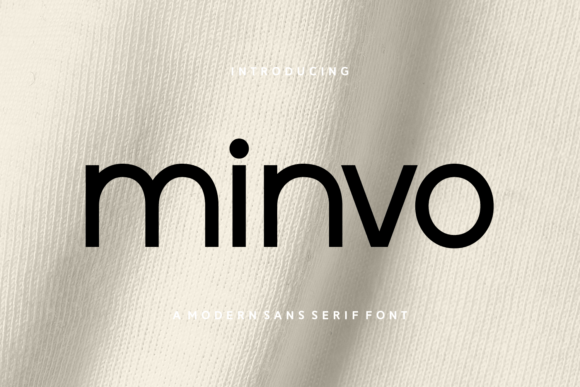
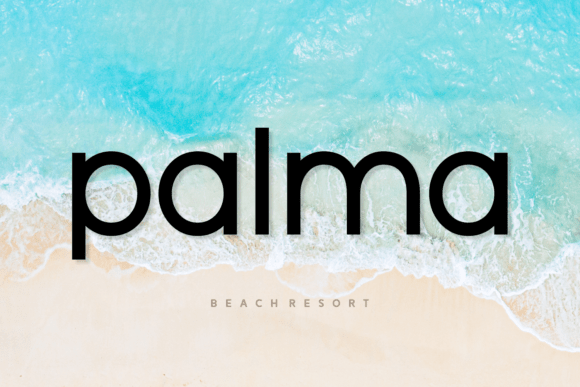
Striking the perfect balance between clinical precision and welcoming warmth is a massive challenge in modern typography, which is why discovering Minvo felt like such a massive win for my personal collection. This is a Clean Sans Serif Font that genuinely prioritizes simplicity without stripping away the human touch. Its rounded shapes and beautifully smooth geometry give it a sleek, professional aesthetic that instantly makes web layouts and minimalist logos look polished, while still keeping the overall vibe completely approachable.
In my day-to-day workflow, having a reliable Clean Sans Serif Font that can pivot between corporate branding and contemporary editorial design is an absolute lifesaver. What I love most about Minvo is its sheer versatility; it scales down brilliantly for dense web interfaces but still carries enough visual weight to anchor a primary brand identity. If you’re trying to elevate your current creative projects with an effortless, modern edge, this typeface deserves a permanent spot in your design toolkit.
2. Ghain Clean Sans Serif Font
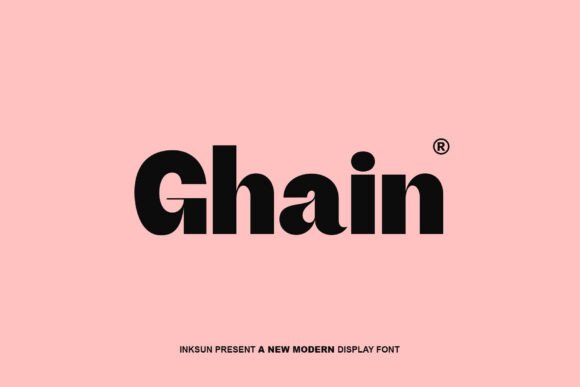
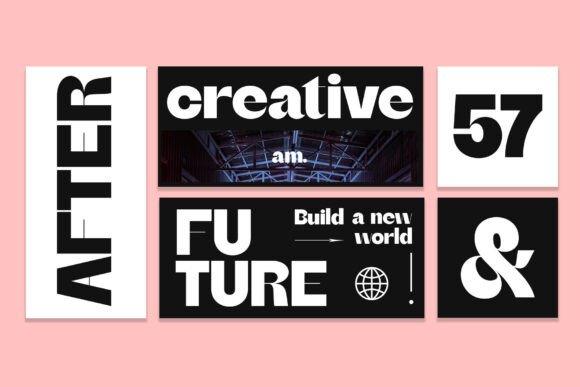
When you need to push your layouts straight into the next decade, Ghain emerges as an absolute powerhouse of a Clean Sans Serif Font. It boldly steps away from the safe, predictable geometry we see every day, delivering a sleek, ultra-modern vibe built on high-contrast shapes that scream futuristic impact. For any creator looking to inject a sense of raw energy into a digital space, its striking structural balance commands immediate attention while keeping the overarching layout pristine and uncluttered.
What really made me fall in love with this Clean Sans Serif Font are the distinctive, cutting-edge “ink-trap” details beautifully paired with razor-sharp lines. These subtle yet highly intentional design quirks make it an incredible asset for crafting minimalist logos and building visual identities for next-gen tech brands. It is the ultimate addition to your creative toolkit for those moments when a project demands a vibe that is sophisticated, forward-thinking, and unapologetically bold.
3. Blessrosa Clean Sans Serif Font
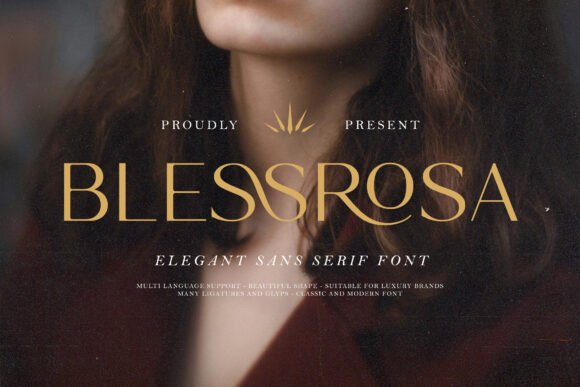
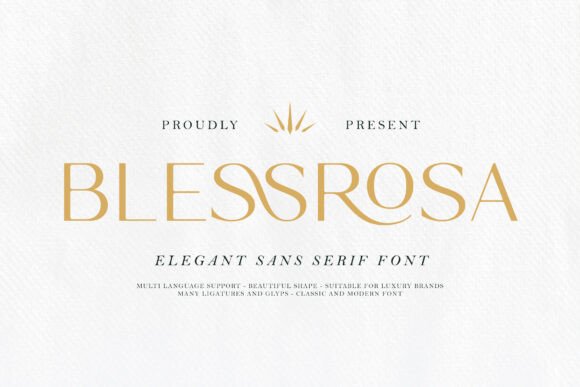
There’s a common misconception that minimalist typography has to feel cold or clinical, but Blessrosa is a Clean Sans Serif Font that completely shatters that stereotype with its royal, graceful lines. It effortlessly marries structural simplicity with a high-end, luxury aesthetic, making it an absolute dream for upscale branding and high-stakes visual identities. Whenever I am working on chic social media content or a minimalist logo that needs to exude pure sophistication, its refined structure brings a certain majestic beauty to the canvas without ever feeling overdesigned.
What makes this Clean Sans Serif Font a truly premium asset in my personal archive is the incredible toolkit of ligatures and creative alternates it offers for customized typography layouts. This level of flexibility is perfect for everything from high-fashion editorials and beauty product packaging to elegant wedding invitations that demand seamless readability alongside a sophisticated edge. Plus, with its extensive multilingual support, it stands out as a reliable, professional-grade resource that helps you communicate beautifully with a global audience while maintaining an elite visual standard.
4. Oqygen Clean Sans Serif Font
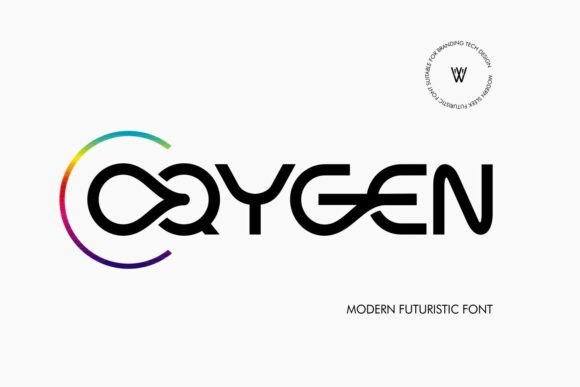
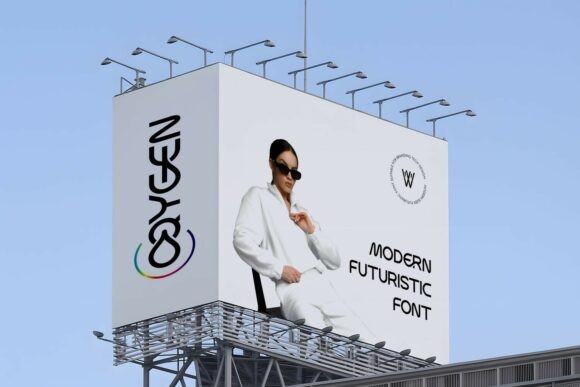
If you’re anything like me, you’re always on the lookout for typefaces that can instantly give a brand an innovative edge without making the layout look cluttered. Enter Oqygen, a Clean Sans Serif Font that masterfully blends a bold, futuristic aesthetic with crisp geometric shapes. It has an incredible contemporary feel that remains completely legible at any size, successfully capturing a unique retro-futuristic vibe reminiscent of the Y2K era while keeping the structural lines perfectly polished and sharp.
For anyone currently designing for tech companies or fast-growing AI startups, this Clean Sans Serif Font is a massive asset for building an assertive digital identity. It functions beautifully as a primary logo font, delivering that elusive balance of cutting-edge innovation and sleek elegance. Whether I’m mapping out a high-tech app interface or an elegant modern logo, Oqygen brings a strong, confident presence to the screen that helps an forward-thinking brand truly stand out.
5. Shemom Clean Sans Serif Font
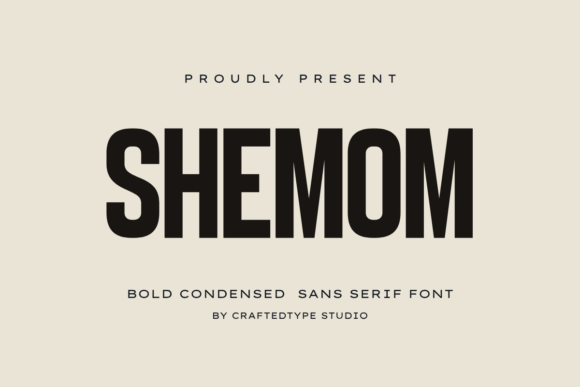
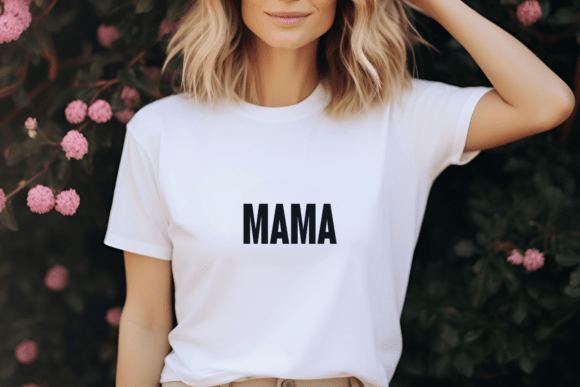
Sometimes a project demands a voice that refuses to fade into the background, and Shemom is a Clean Sans Serif Font that brings that exact commanding energy to the canvas. It completely subverts the idea that minimalist typography must always be thin or delicate, opting instead for thick, tall, condensed letterforms built on a flawless geometric foundation. As a creator, I love how this typeface manages to feel incredibly solid and powerful while keeping its outlines completely immaculate, making it a stellar choice for motherhood-themed branding, lifestyle blogs, or empowering social media quotes.
What makes this specific Clean Sans Serif Font such an essential asset in my modern design toolkit is its remarkable impact across physical products and print-on-demand merchandise. It translates effortlessly onto t-shirts, hoodies, and tote bags, where high visibility and structural weight are everything. Whether you are mapping out a minimalist poster, a contemporary corporate logo, or a bold cinematic title, Shemom provides that rare, punchy sophistication that instantly captures an audience’s attention.
6. Gaego Clean Sans Serif Font
It feels like the design world is constantly flooded with minimalist typefaces that all look identical, but Gaego is a Clean Sans Serif Font that brings something genuinely fresh to the table. It hits that elusive sweet spot between strict geometric simplicity and subtle, unique character, making it an instant favorite for anyone who appreciates understated elegance. Whenever I need a layout to look perfectly organized yet visually intriguing, its beautifully balanced proportions do the heavy lifting effortlessly.
What makes this Clean Sans Serif Font a staple in my everyday workflow is its sheer adaptability across different digital and print mediums. Whether I’m sketching out sleek layouts for web design, setting up editorial spreads, or refining a polished corporate logo, Gaego maintains maximum readability without losing its modern edge. It’s an incredibly reliable, professional resource for any minimalist design project where you want your creative typography to look flawless, sharp, and completely intentional.
7. Margesta Clean Sans Serif Font
Finding a typeface that manages to feel completely stripped-back yet undeniably luxurious is no easy feat, but Margesta pulls it off beautifully. This Clean Sans Serif Font redefines modern elegance by pairing razor-sharp lines with subtle, artistic curves that catch the eye just enough. It brings a sophisticated, timeless look to the screen, making it an absolute dream to work with whenever you want to achieve a high-end, editorial feel without cluttering your layout.
What really stands out when you drop this Clean Sans Serif Font into a project is its incredible structural balance and proportion. It functions seamlessly across a massive range of premium applications, whether I’m setting a bold, sweeping web header for a fashion client or keeping things ultra-legible in a minimalist corporate logo. Having Margesta in your creative toolkit means you always have a reliable option for delivering maximum clarity wrapped in an effortless sense of class.
8. Delinda Clean Sans Serif Font
Every now and then, I find myself craving a visual palate cleanser—a typeface that doesn’t try too hard but completely nails the fundamentals of form. Delinda is exactly that kind of asset, a beautifully executed Clean Sans Serif Font that leans heavily into a fresh, modern, and deceptively simple style. Its smooth lines and flawlessly balanced shapes give it a beautifully calm presence, making it the perfect choice for anyone looking to build a minimalist aesthetic without any unnecessary noise.
In my own creative workflow, dropping this Clean Sans Serif Font into a layout instantly fixes readability issues, especially when I’m working on bold headlines or sleek logos. It possesses a crisp clarity that keeps the viewer’s eyes comfortable and engaged, whether it’s displayed on a massive desktop screen or a tiny mobile interface. If your current design toolkit is lacking a reliable, no-nonsense typeface that radiates effortless simplicity, Delinda is an absolute must-have for your collection.
9. Venus Clean Sans Serif Font
There are days when I just want to sweep away all the decorative clutter from my artboard and let pure, unadulterated geometry do the talking—and that’s exactly when I pull out Venus. This Clean Sans Serif Font is the epitome of contemporary minimalism, stripped of any unnecessary flair to focus purely on structural balance. Its simple, modern proportions give it an incredibly calm and grounded presence, making it an absolute joy to use when you want your layout to breathe and look effortlessly organized.
What makes this particular Clean Sans Serif Font such a versatile powerhouse is how seamlessly its geometric shape choices translate across digital interfaces without ever feeling sterile. I’ve found it to be a massive asset for web design projects and minimalist logos where absolute clarity is the main goal. If you are currently building a contemporary brand identity that leans into a sleek, open, and timelessly clean aesthetic, Venus offers the exact type of effortless precision your creative toolkit needs.
10. Snowglint Clean Sans Serif Font
There is a unique kind of magic in typefaces that manage to evoke a specific mood without screaming for attention, and Snowglint does exactly that. As an all-caps Clean Sans Serif Font, it beautifully captures the crisp clarity and soft sparkle of winter twilight through its refined, no-fuss design choices. Its balanced proportions, pristine lines, and gentle curves inject an unexpected layer of warmth into a minimalist canvas, making it a stellar option for high-end lifestyle blogs, tech interfaces, or sophisticated editorial spreads that need to feel open and breathable.
When dropping this Clean Sans Serif Font into a layout, I am always impressed by how its even spacing and meticulous construction translate effortlessly across both print and digital mediums. Because it focuses purely on uppercase letters, numerals, and essential punctuation, it functions as a highly effective powerhouse for modern branding projects that require absolute, uncompromised legibility. It’s an incredibly sophisticated addition to any creative toolkit, offering a pristine, sharp appearance that makes your typography look polished, deliberate, and undeniably premium.
11. Lightes Clean Sans Serif Font
When it comes to setting extensive body copy on a website or polishing up a high-stakes client presentation, finding a typeface that breathes naturally on the screen is a total game-changer, and that’s precisely why Lightes caught my eye. This beautifully lightweight Clean Sans Serif Font features perfectly simple lines anchored by subtle, delicate curves at the corners. The result is a really fascinating visual contrast—it’s soft enough to feel welcoming and approachable, yet firm enough to hold its structural integrity across both snappy headers and dense blocks of informational text.
What really makes me keep coming back to this Clean Sans Serif Font is its exceptionally airy letter spacing, which makes long-form digital reading feel absolutely effortless for the user. I’ve found it to be an incredible choice for formatting clean corporate articles, setting up web interfaces, or even designing minimalist posters where negative space does most of the talking. If your current toolkit is missing an elegant, multi-purpose option that brings an instant modern polish to professional documents and logos alike, Lightes is well worth adding to your creative rotation.
12. Farmhouse Clean Sans Serif Font
Lately, I’ve been finding myself drawn to designs that look back in time while staying firmly anchored in the present, which is why Farmhouse instantly felt like a breath of fresh air for my collection. It is a wonderfully simple Clean Sans Serif Font that strips away all the unnecessary visual noise to deliver a clean retro look that feels incredibly grounded. By relying on beautifully balanced vintage proportions, it gives you a quick and easy way to inject a warm, nostalgic heartbeat into an otherwise stark, modern artboard without compromising on structure.
What makes this Clean Sans Serif Font such an unexpected gem in my regular design routine is its surprising versatility across highly specialized creative projects. Beyond its obvious utility for sleek web design and minimal logos, its honest, unpretentious lines make it an incredibly cool choice for custom tattoo typography and heritage branding. If your creative toolkit could use a minimalist typeface that effortlessly bridges the gap between classic charm and contemporary layouts, adding Farmhouse to your rotation is a complete no-brainer.
Conclusion
Ultimately, adding a versatile Clean Sans Serif Font to your everyday creative rotation is all about mastering the art of understatement. Whether you are aiming for tech-forward innovation, luxury branding, or a warm retro vibe, these 12 curated picks offer the exact precision your layouts deserve. Keep experimenting with negative space and let these crisp geometric shapes do the heavy lifting.